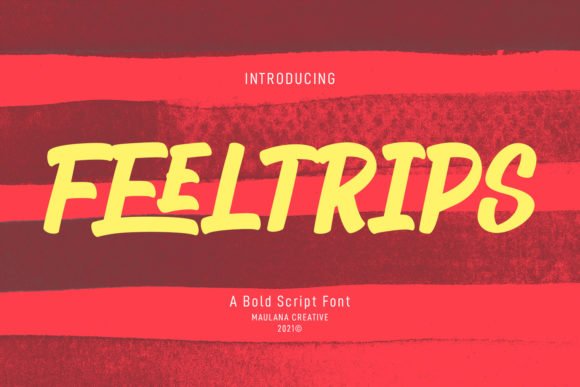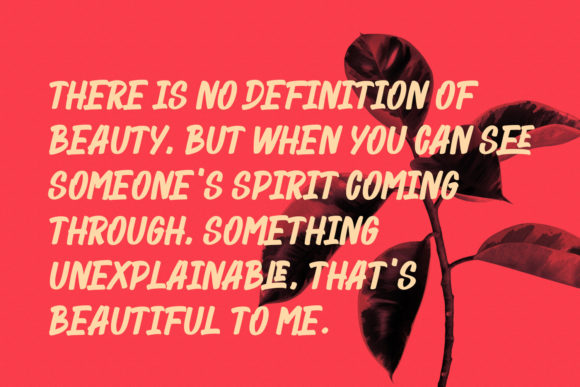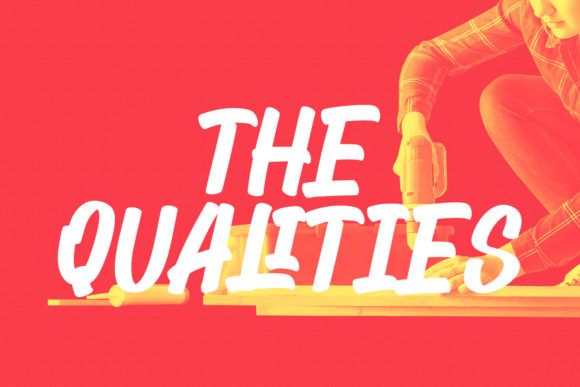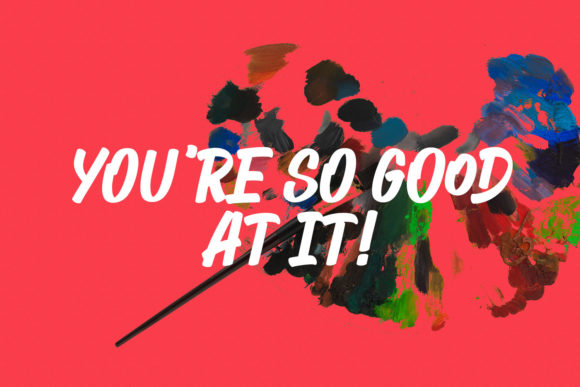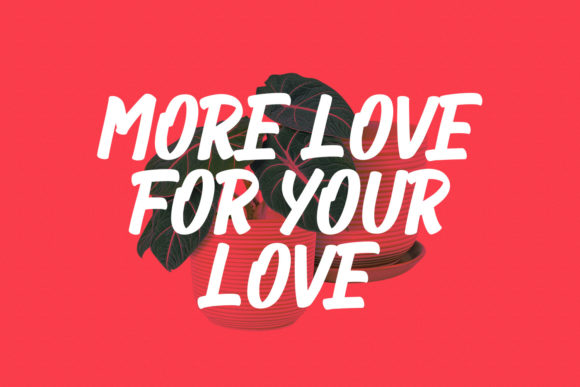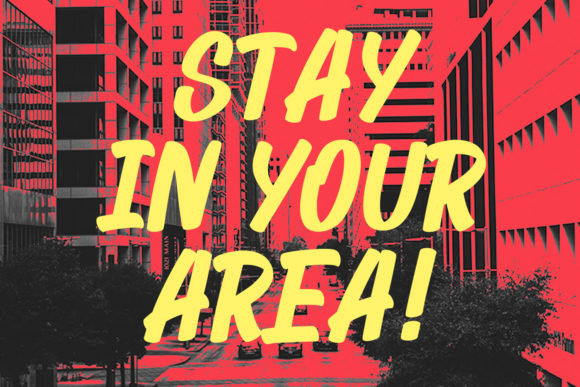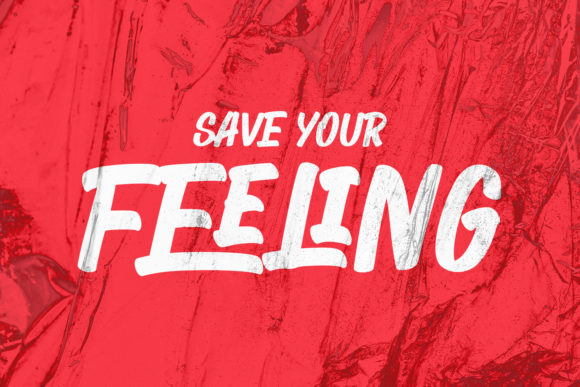
But what happens when you need the right tools to bring your vision to life? This is where the Feeltrips Font comes in – a cool and casual display font designed to elevate any creation. Whether you’re crafting a social media post, designing a logo, or writing a blog article, this font has the potential to add a touch of personality and style. As a valuable addition to your font library, the Feeltrips Font is an asset you won’t want to miss.
Feeltrips Font Key Features
- Size: The font family consists of 10 styles, each with 6 weights, providing a total of 60 font styles to choose from. The font sizes range from 8 to 72 points, catering to various design requirements.
- Resolution: Feeltrips Font is designed to be scalable, allowing it to maintain its quality and legibility at high resolutions (up to 300 DPI).
- Unique Characteristics: The font features a unique, hand-drawn design with subtle irregularities, giving it a natural and organic feel. This makes it perfect for use in creative and artistic projects.
- Language Support: Feeltrips Font supports a wide range of languages, including Latin, Cyrillic, and Greek scripts, making it a versatile choice for global design projects.
- Font Pairing: The font’s unique design makes it an excellent choice for pairing with other fonts, allowing designers to create unique and visually appealing typography.
Feeltrips Font Review
Overall, I think the Feeltrips Font has a lot of potential, but it also has some limitations that need to be addressed. Here are my thoughts.
- Unique and creative letterforms – The font has a distinctive, hand-drawn feel that sets it apart from other sans-serif fonts.
- Perfect for creative projects – The font’s playful and expressive nature makes it ideal for projects like advertisements, social media graphics, and children’s books.
- Good legibility – The font is clear and easy to read, even at small font sizes.
- Limited font sizes – The font looks best at larger font sizes, and may become pixelated or distorted at smaller sizes.
- May not be suitable for formal projects – The font’s playful nature may not be suitable for formal projects like business reports or academic papers.
- Not as versatile as other fonts – The font’s unique style may limit its use in certain contexts, such as technical writing or financial reports.
Overall, I think the Feeltrips Font is a great choice for creative projects, but it may not be the best option for more formal or technical writing. With some adjustments and refinements, it has the potential to be a truly exceptional font.
Feeltrips Font: A Practical Application Guide
Getting the Most Out of Feeltrips Font
For the best results, use Feeltrips Font in conjunction with bold or italic styles to create visual interest.
Feeltrips Font is perfect for:
Creating eye-catching titles and headings.
Adding a touch of elegance to wedding invitations or event materials.
Designing logos or brand identities that require a unique and memorable font.
Alternatives to Feeltrips Font
Great Vibes is a modern, elegant script font designed for use in headings and titles. It’s perfect for creating a sophisticated and refined look in your designs. When to use: headings, titles, and quotes. Comparison: Great Vibes has a more elegant and refined feel compared to Feeltrips Font, which is more playful and casual.
Pacifico is a beautiful, cursive script font that’s great for creating a relaxed and beachy vibe. It’s perfect for use in headings, titles, and body text. When to use: headings, titles, body text, and quotes. Comparison: Pacifico has a more laid-back and casual feel compared to Feeltrips Font, which is more playful and energetic.